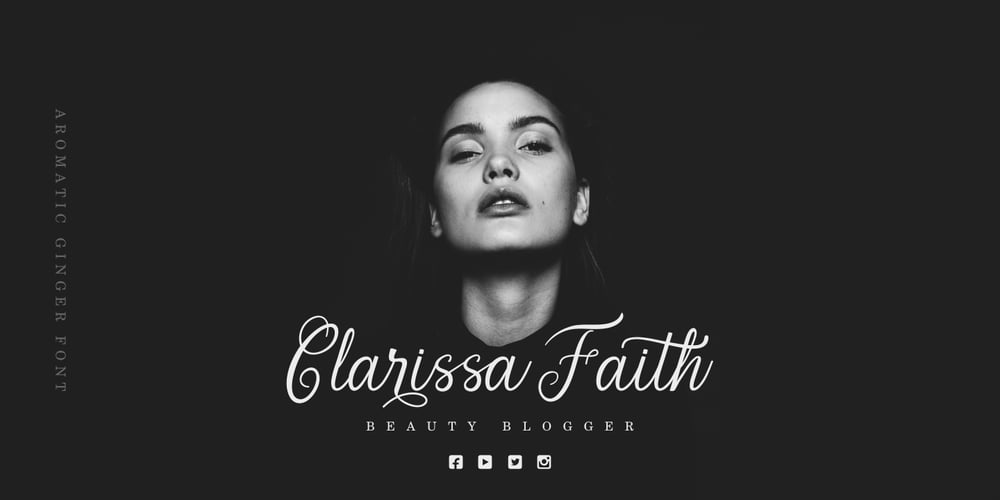
Aromatic Ginger
Aromatic Ginger font
Aromatic Ginger Font Family was designed by Java Pep and published by Java Pep. Aromatic Ginger contains 1 styles and family package options. Introducing an elegant calligraphy font called Aromatic Ginger. This fonts inspired by dip pen calligraphy that every letter made many stylistic alternates like swash, tail and etc. The Aromatic Ginger font is perfect for greeting card, wedding invitation, logotype, personal branding, signature and many more. What’s the feature – Uppercase and lowercase – numeral and punctuations – OpenType features initial and terminal form, swashed, alternates, and stylistic alternates. – Multilingual support more 25 language – PUA encoded Note: For access OpenType features this font, make sure that your software is supported OpenType like illustrator cc, photoshop cc, or Corel x8. If not yet supported, for the alternative to access OpenType can using character map check this video https://www.youtube.com/watch?v=KV7n5nxmsLs&feature=youtu.be Thanks for using this font. Have a nice day:)